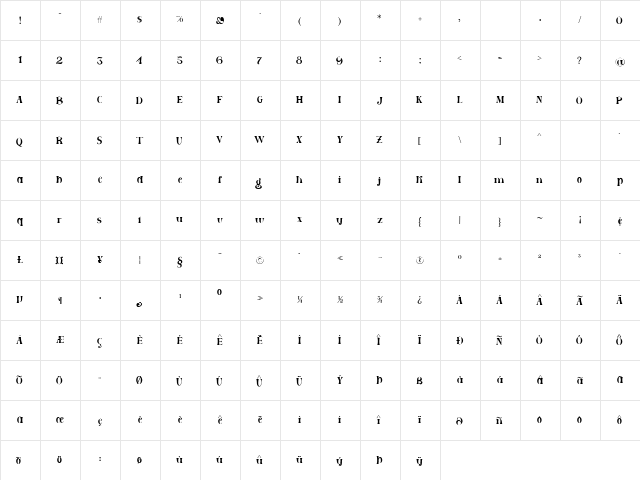
Harler Mixgiter Regular
| Foundry | IM Studio |
| Designer | Ikhsan Maulana |
Design Context for Harler Mixgiter Typeface
Harler Mixgiter is a composed and adaptable typeface that performs quietly and consistently across a wide range of design contexts.